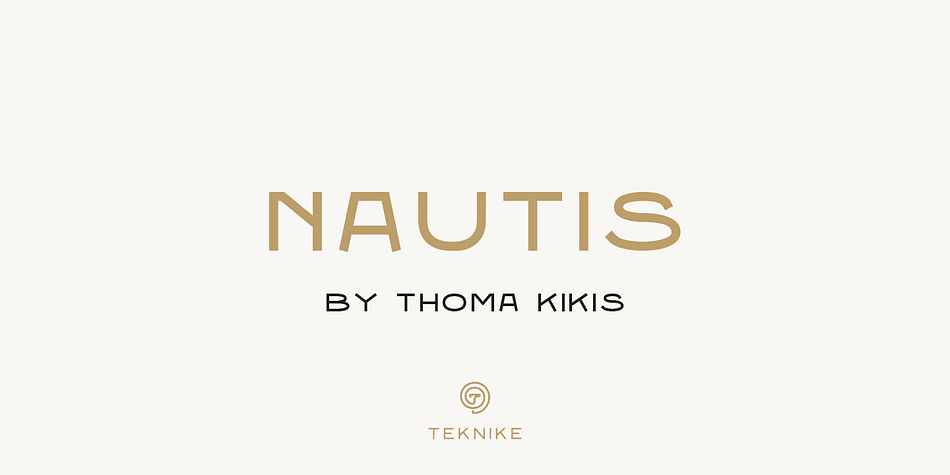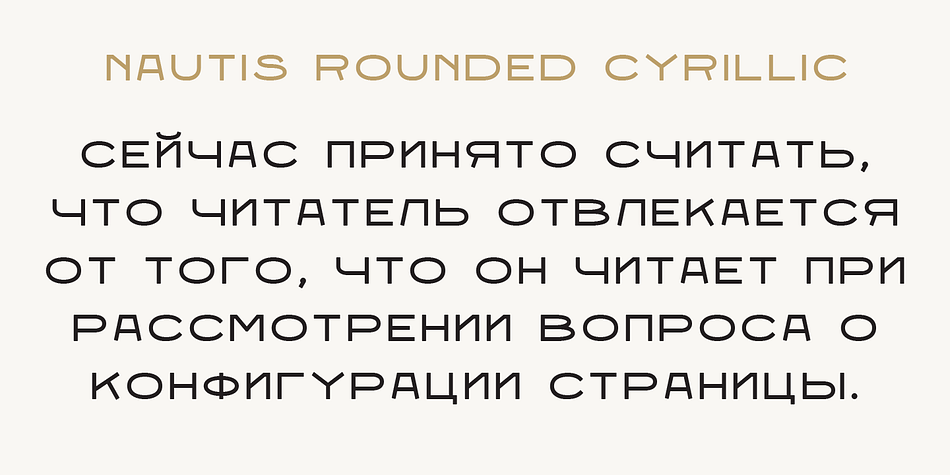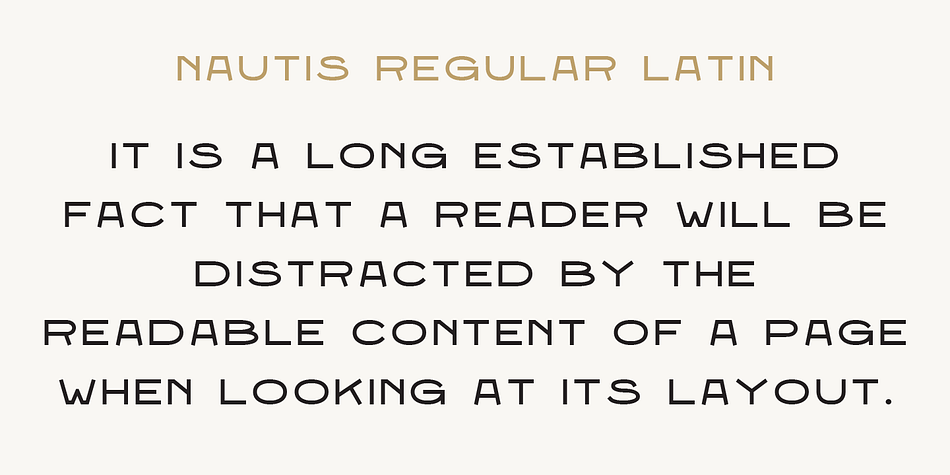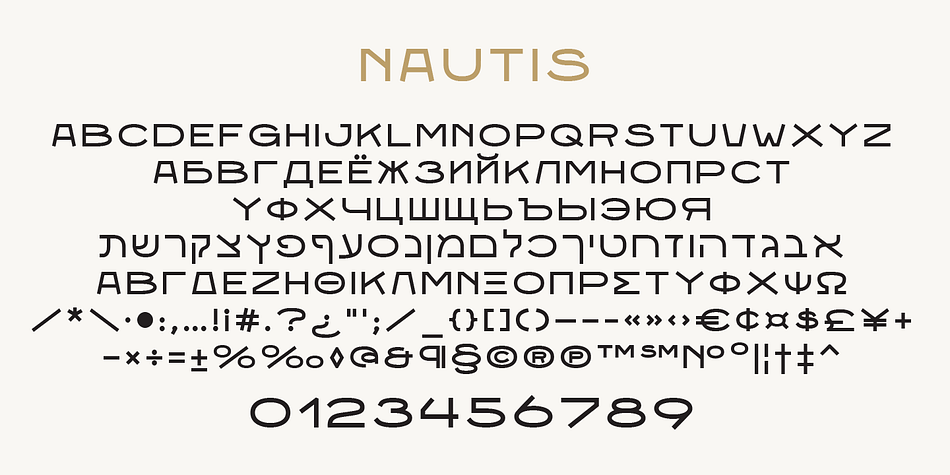
Designed by Thoma Kikis, Nautis is a display sans font family. This typeface has eight styles and was published by TEKNIKE.
Nautis is a distinct display monospace typeface. The Nautis name is derived from the Greek nautikos meaning “naval”. Nautis is great for fashion, events, branding, military, navy, nautical, shipping and suited for display work, invitations, writing, architecture, posters, logos and headings.
Nautis is designed by Thoma Kikis and is currently available with Latin, Cyrillic, Hebrew and Greek character sets in 8 styles including Regular, Italic, Round, Round Italic, Rounded, Rounded Italic, Outline and Outline Italic.